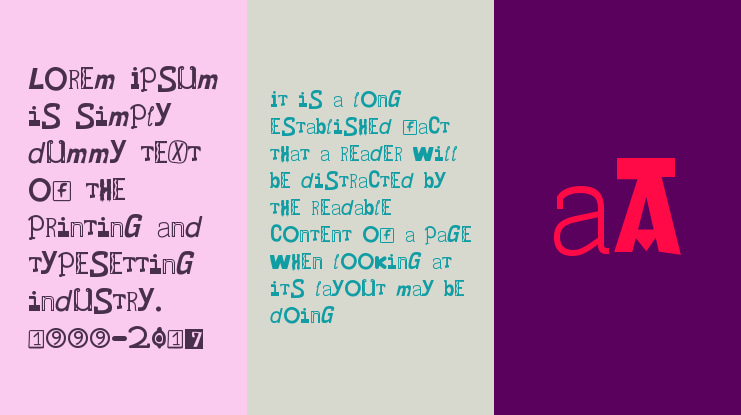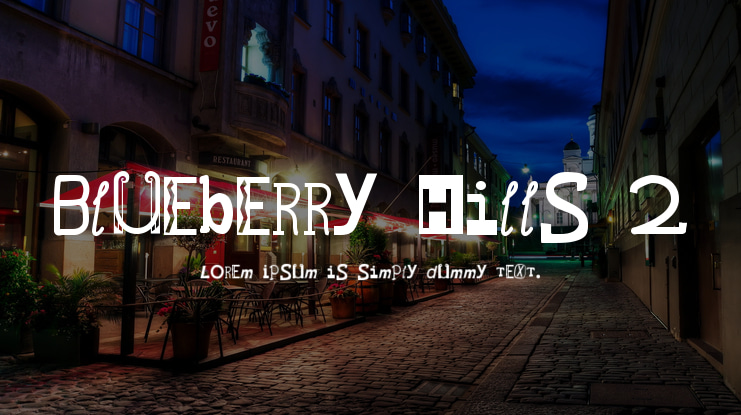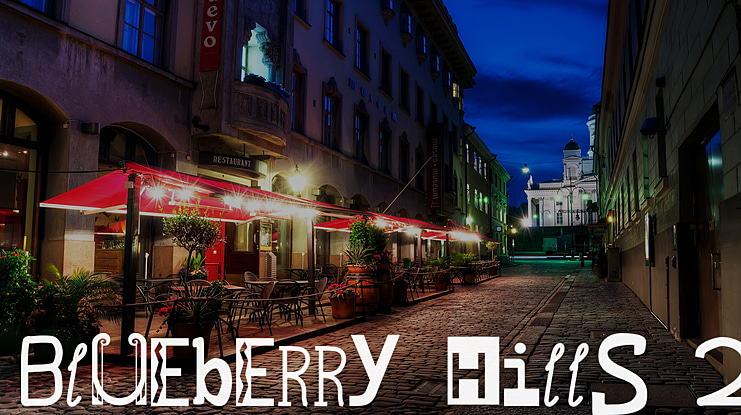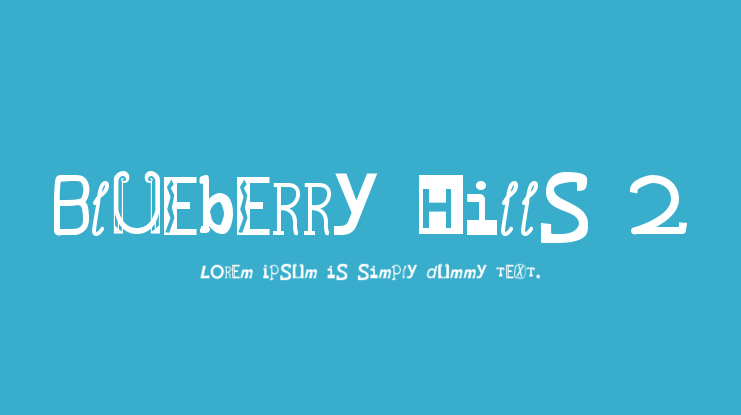
Blueberry Hills 2 Font
Another ransom note font. This had to be served as the sequel to Blueberry Hills. Made up of some fonts in many different font styles. Great for scrapbooking, greeting cards and headlining, but it shouldn't really be used for text.